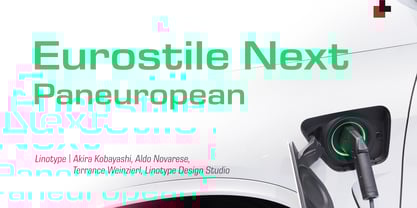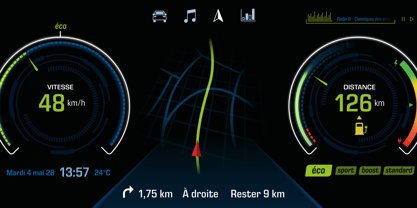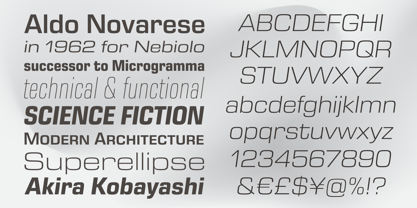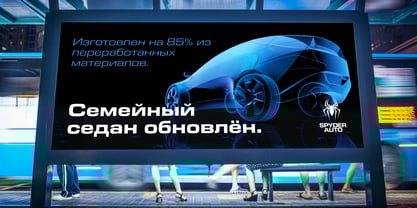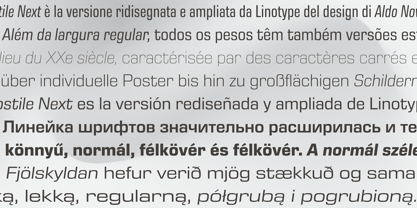
Eurostile Next Paneuropean
por Linotype
La familia tipográfica Eurostile Next Paneuropean fue diseñada por Akira Kobayashi, Aldo Novarese, Terrance Weinzierl, Linotype Design Studio y publicada por Linotype. Eurostile Next Paneuropean contiene 50 estilos y opciones de paquete familiar. Más información sobre esta familia
Eurostile Next is Linotype's redrawn and expanded version of Aldo Novarese's 1962 design. This new version refers back to the original metal types and to its mid-century modern aesthetic of squarish characters and subtle curves. Eurostile Next brings back the gentle curves, which were lost in other digital versions, therefore regaining the spirit of the original design and its somewhat softer demeanor. The family has been greatly expanded, now consisting of five different weights: ultra light, light, regular, semibold, and bold. Along with the regular width, all weights also have extended and condensed versions. Stylistically, Eurostile Next is well suited for designs in the fashion of the 50's and 60's, yet it still has a remarkably new and contemporary feeling. Its numerous variations and typographic features are invaluable for projects ranging from extensive corporate branding to one-off posters and from large signage to small print text.
Diseñadores: Akira Kobayashi, Aldo Novarese, Terrance Weinzierl, Linotype Design Studio
Fundición: Linotype